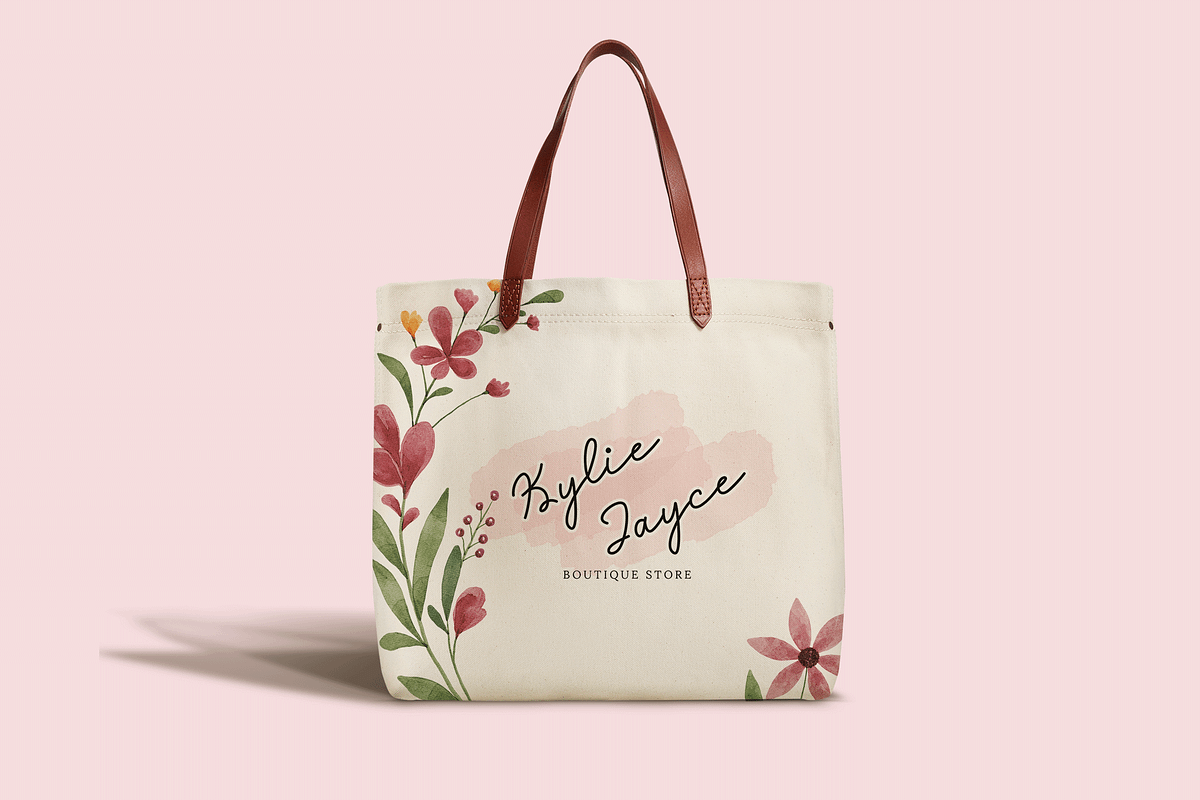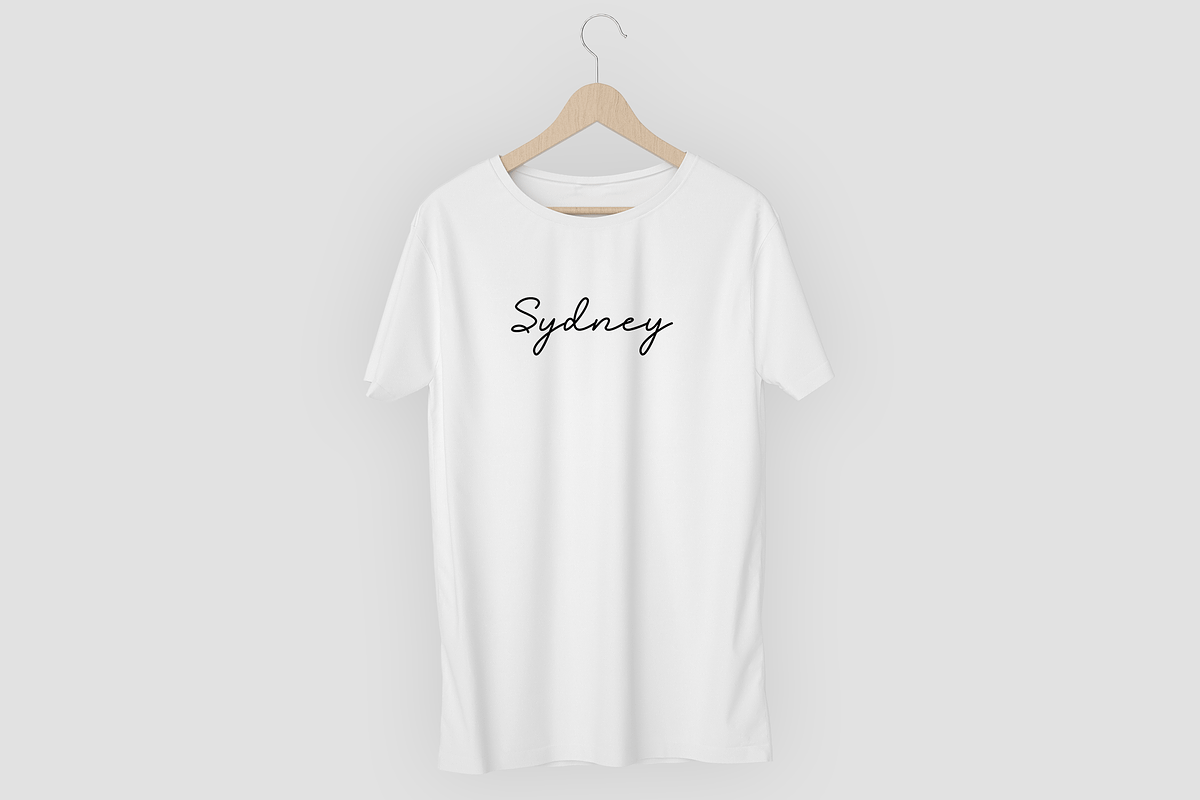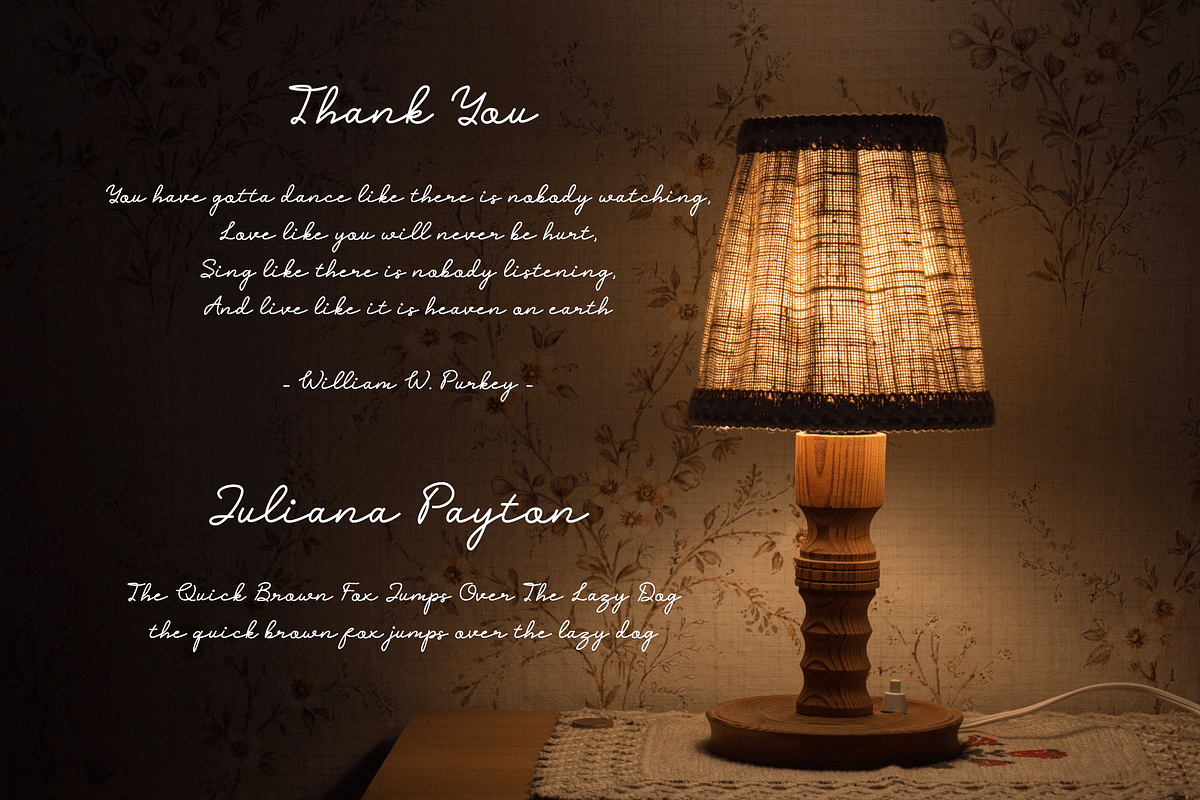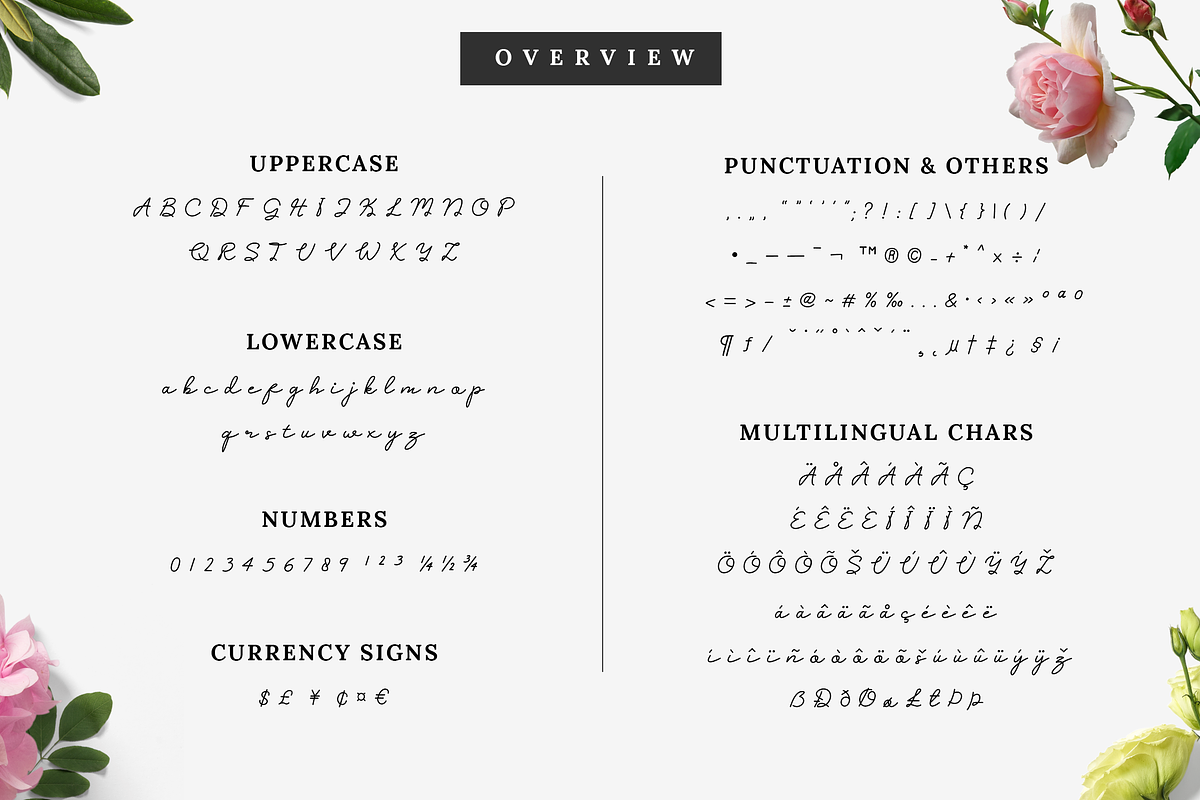
Monoline Script Font - Clara Sydney
CLARA SYDNEY is a modern calligraphic font in a monoline script style. It is a versatile, modern twist on classic cursive. You can use this typeface for branding, social media, weddings, stationery, packaging, layout design, and advertising.
CLARA SYDNEY font includes full set of charming uppercase, lowercase, multilingual chars/international letters, numerals, currency signs, a large range of punctuation, symbol, and others.